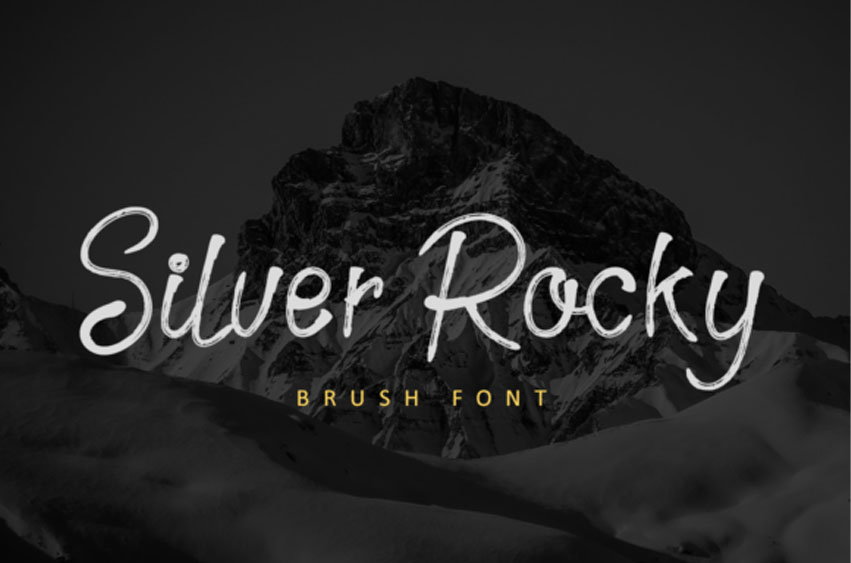
Silver Rocky Font
Silver Rocky Font is a unique and flowing handwritten font, designed with the help of a brush pen.
Fall in love with its incredibly versatile style and use it to create spectacular designs!